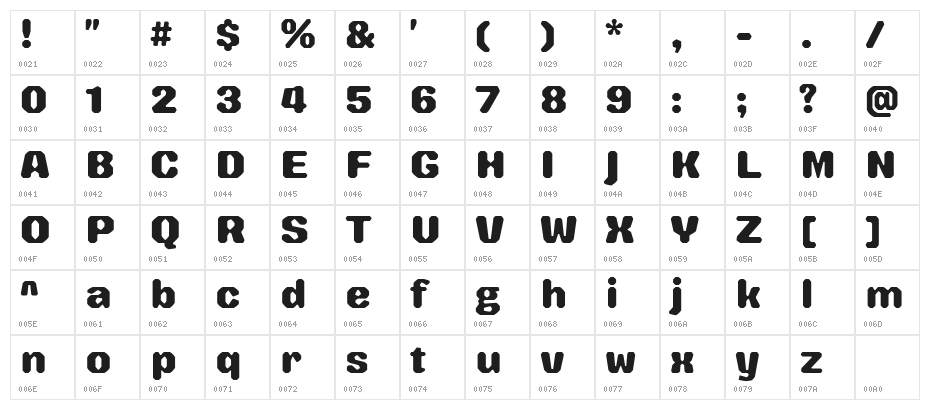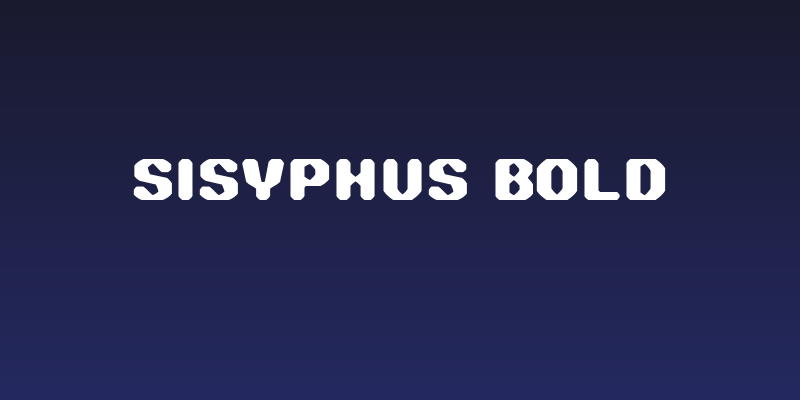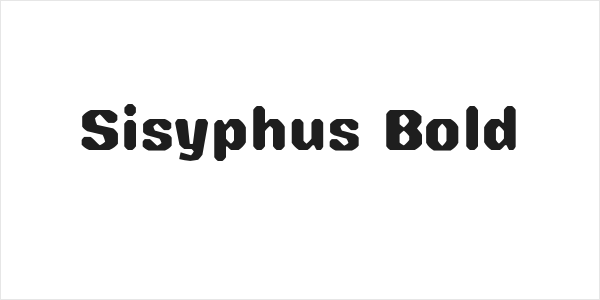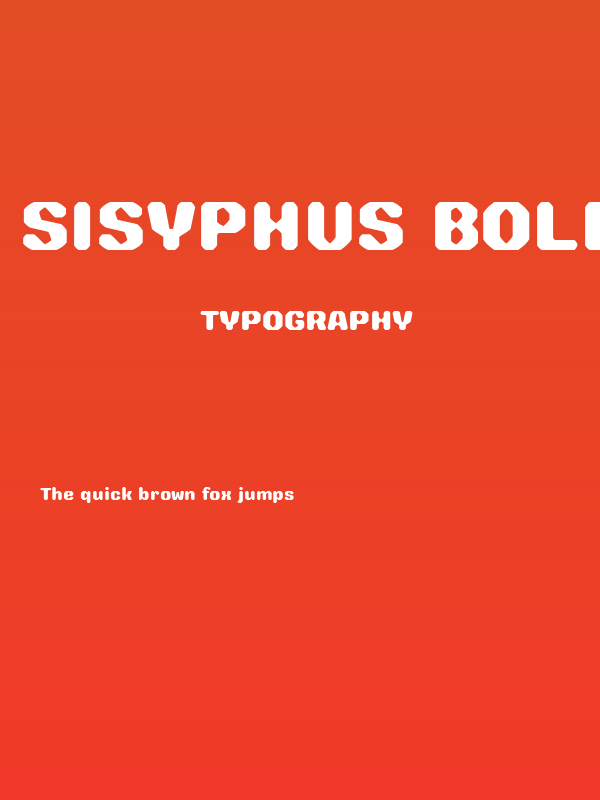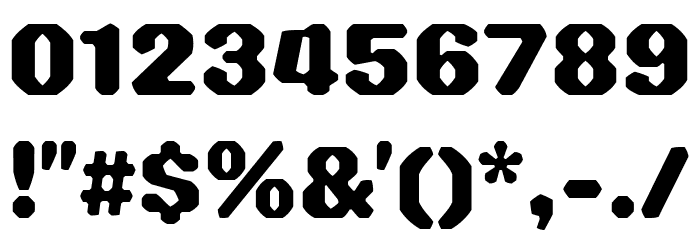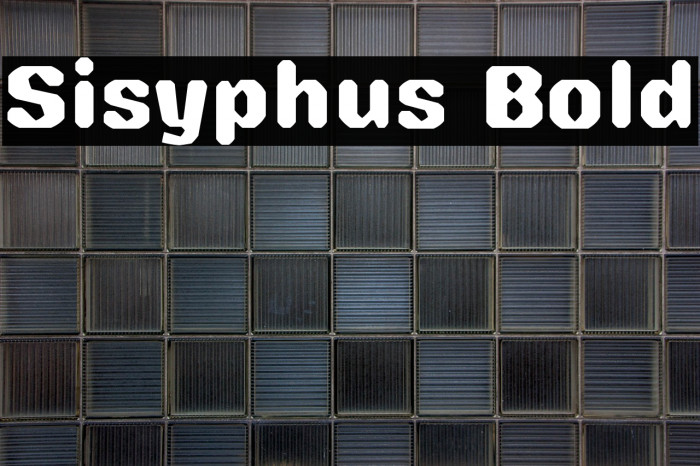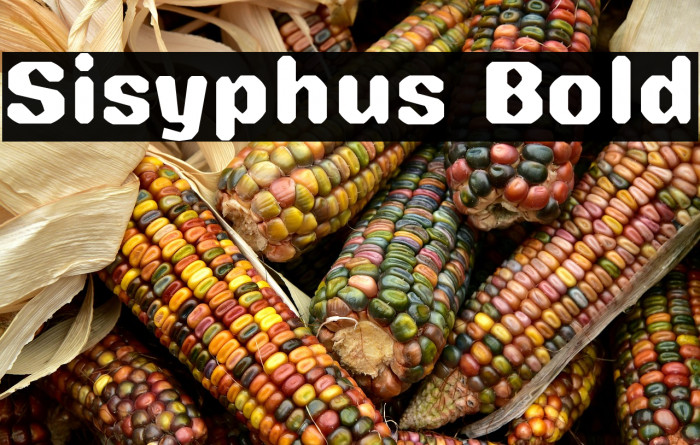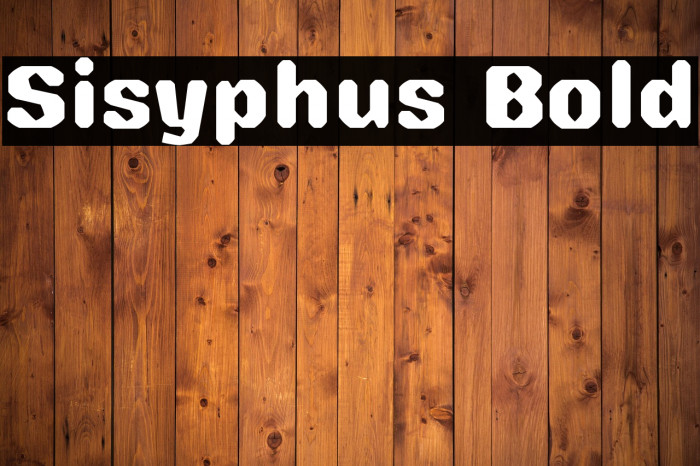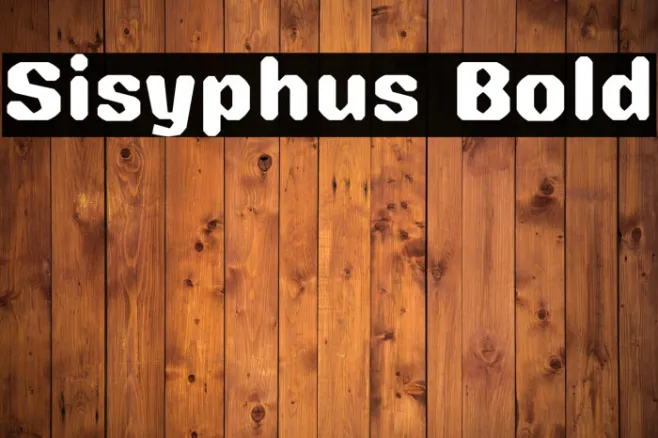
Sisyphus Bold Font
Sisyphus Bold Description
This font features a bold and robust design with a strong geometric influence. The characters are thick and blocky, giving it a powerful presence. The uppercase and lowercase letters maintain a consistent weight, while the numbers and special characters follow the same bold style. The font's angular cuts and sharp edges add a modern and industrial feel, making it stand out in any design. Its distinct style is ideal for projects that require a strong visual impact.
| Proposed Projects | Ideal for branding, posters, headlines, and any design requiring a strong visual impact. |